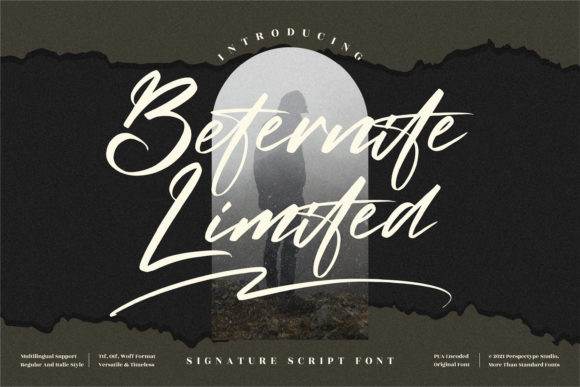
Introducing Beternite Limited Font: A Beautiful Cursive Script Font
Are you looking for a font that can add a touch of elegance and romance to your next project? Look no further than Beternite Limited Font. This beautiful, cursive, and dainty script font is perfect for a wide range of applications, from greeting cards to headlines, and is guaranteed to make your project stand out.
What is Beternite Limited Font?
Beternite Limited Font is a carefully crafted script font that exudes a sense of sophistication and refinement. Its cursive and dainty design makes it perfect for projects that require a touch of elegance and romance. The font is highly adaptable and can be used for a wide range of applications, including:
- Greeting cards
- Headlines
- Logos
- Branding
- Packaging
- Advertising
Key Features of Beternite Limited Font
Beternite Limited Font has several key features that make it a standout font:
- Beautiful Cursive Design: The font features a beautiful, cursive design that adds a touch of elegance and sophistication to any project.
- Dainty and Refined: The font is dainty and refined, making it perfect for projects that require a subtle and understated look.
- Highly Adaptable: The font is highly adaptable and can be used for a wide range of applications, from greeting cards to headlines.
- Romantic Feel: The font is guaranteed to add a romantic feel to your next project, making it perfect for wedding-related projects, Valentine’s Day promotions, and more.
Benefits of Using Beternite Limited Font
Using Beternite Limited Font can bring several benefits to your project:
- Unique and Eye-Catching: The font is unique and eye-catching, making it perfect for projects that require a standout look.
- Emotional Connection: The font’s romantic feel can help create an emotional connection with your audience, making your project more relatable and engaging.
- Versatile: The font is highly versatile and can be used for a wide range of applications, making it a great addition to any designer’s font library.
- Easy to Read: The font is easy to read, even in small sizes, making it perfect for body text and captions.
Tips and Tricks for Using Beternite Limited Font
Here are some tips and tricks for using Beternite Limited Font:
- Pair with a Sans-Serif Font: Pair Beternite Limited Font with a sans-serif font for a beautiful contrast.
- Use for Headlines and Titles: Use Beternite Limited Font for headlines and titles to add a touch of elegance and sophistication.
- Experiment with Colors: Experiment with different colors to find the perfect match for your project.
- Use for Wedding-Related Projects: Use Beternite Limited Font for wedding-related projects, such as wedding invitations, save-the-date cards, and more.
Beternite Limited Font is a beautiful, cursive, and dainty script font that is perfect for a wide range of applications. Its unique and eye-catching design makes it a great addition to any designer’s font library. With its romantic feel and highly adaptable design, Beternite Limited Font is guaranteed to add a touch of elegance and sophistication to your next project.